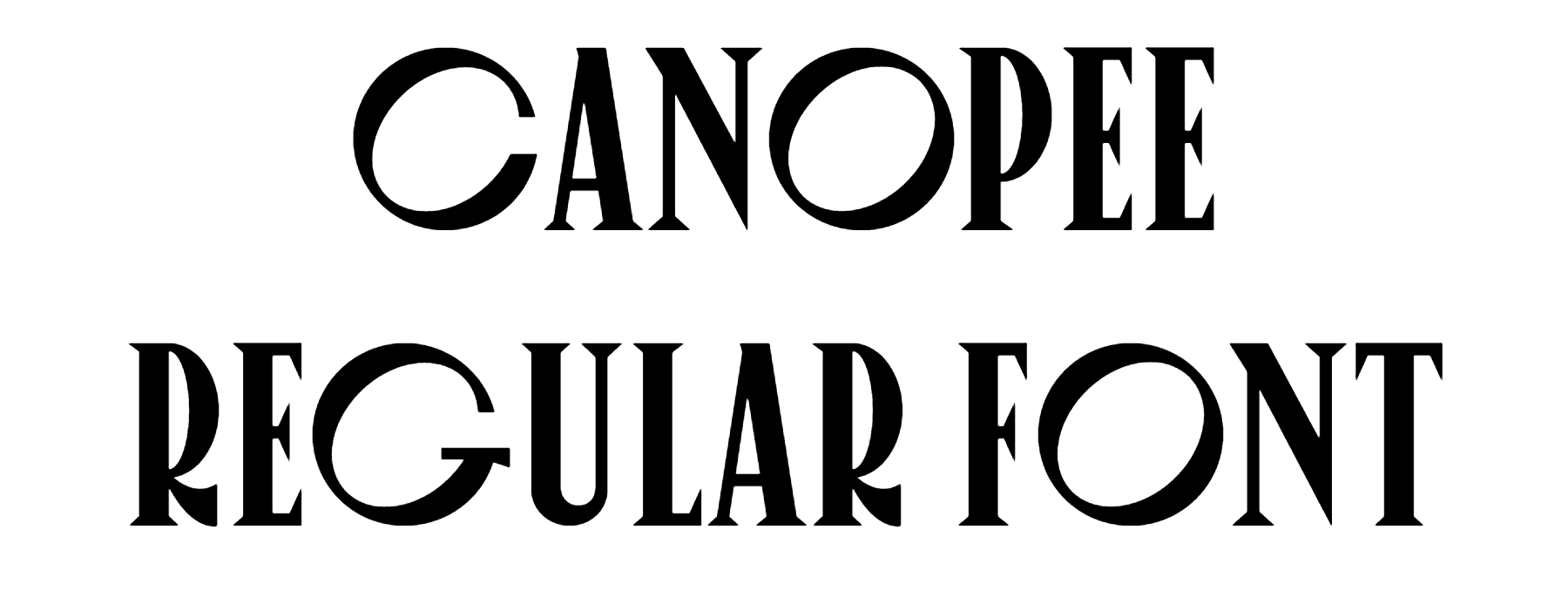
Canopee Regular Font
- Designer: Jeremy Schneider
- Publisher: VJ Type
What You Can Type With Canopee Regular
With complete upper and lowercase letters and all ten digits, Canopee Regular is ready for real wording, not just a single headline. Common punctuation such as &, !, ? and @ is included as well. It also has the accented letters you need for Spanish, French, German, Portuguese and Italian.
Where Canopee Regular Works Best
Think of Canopee Regular for book covers, magazine headlines and classic branding. Serif fonts shine in headlines and printed text. For long paragraphs on phones, check that it still reads well at small sizes.